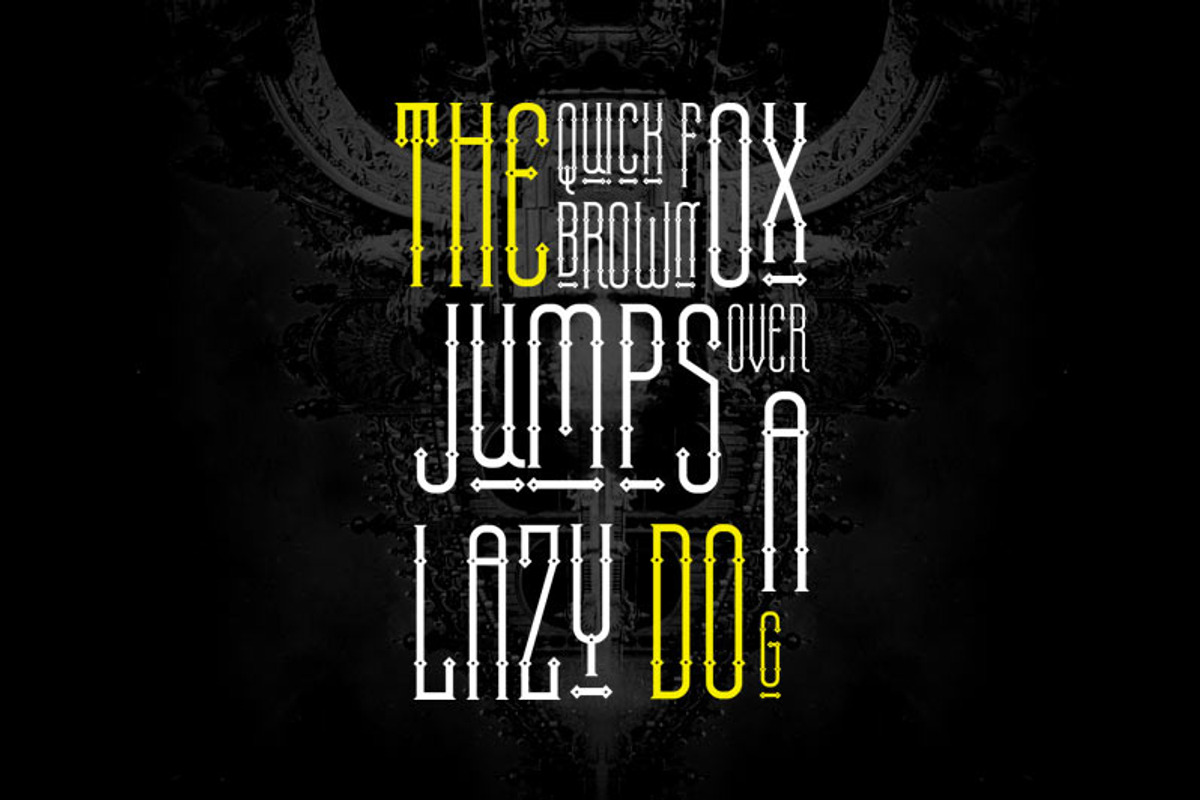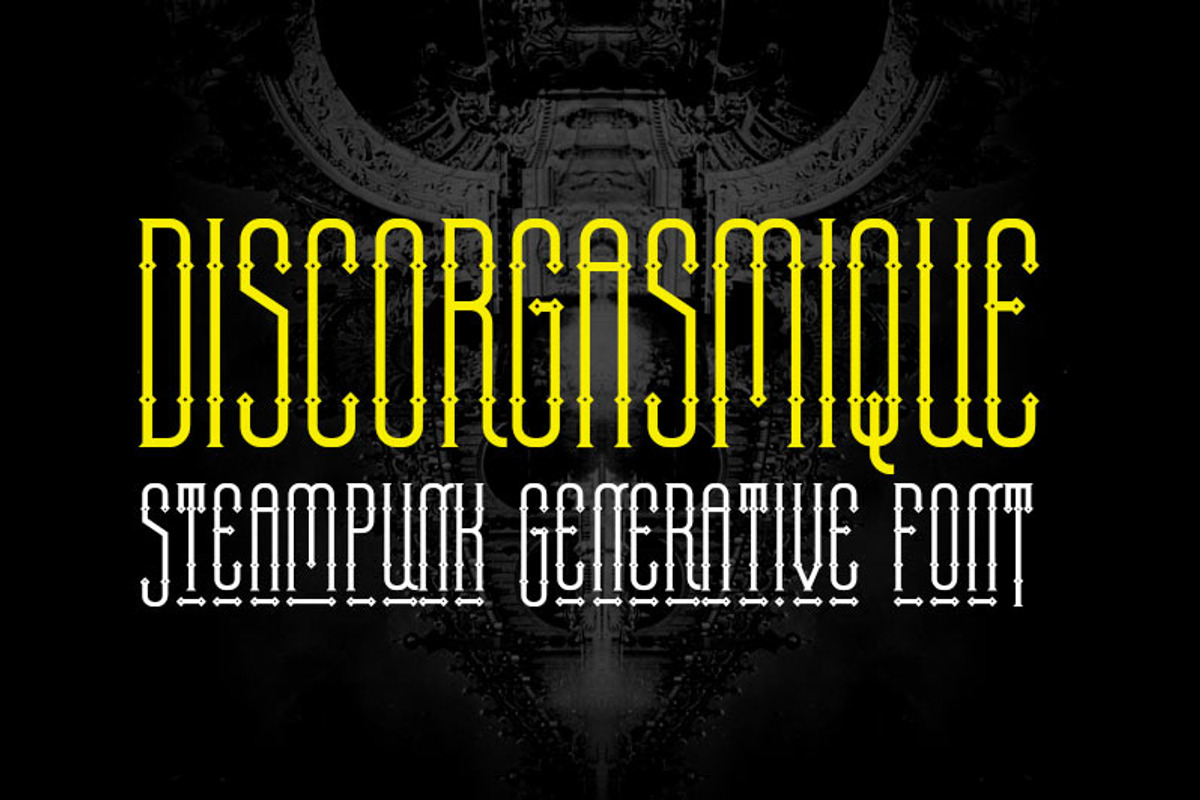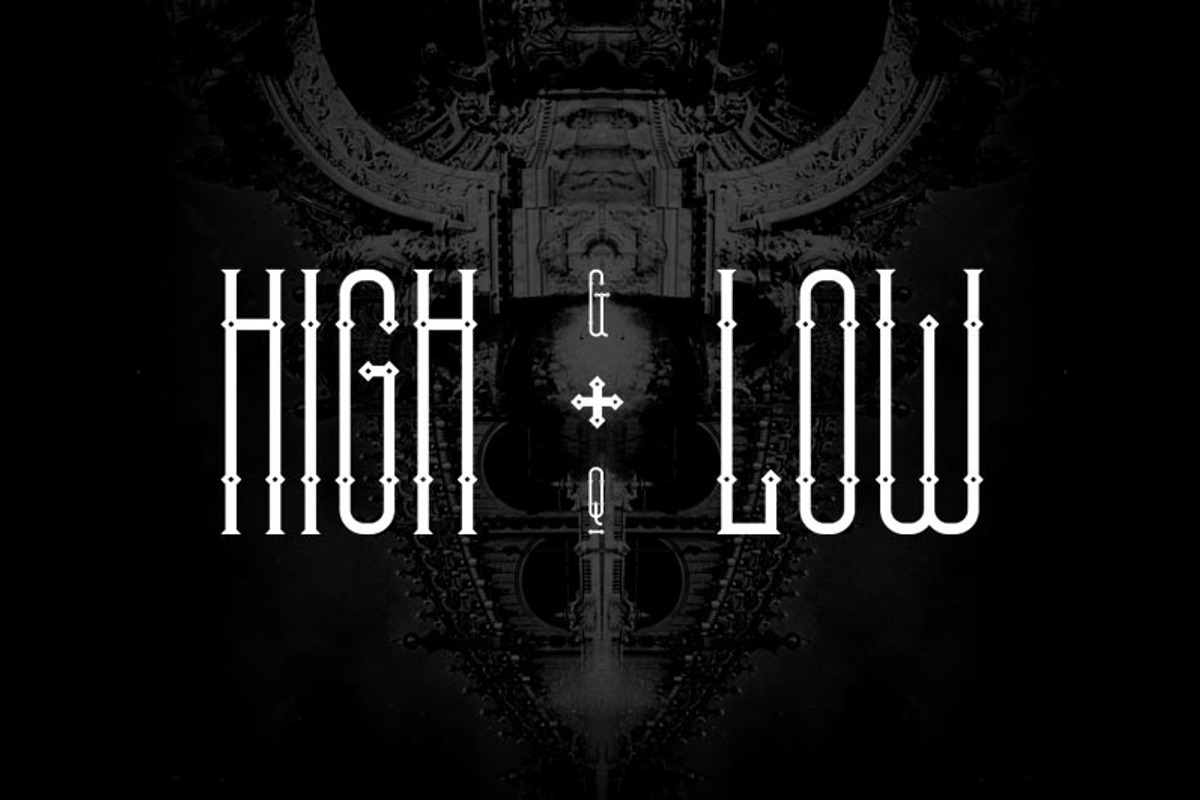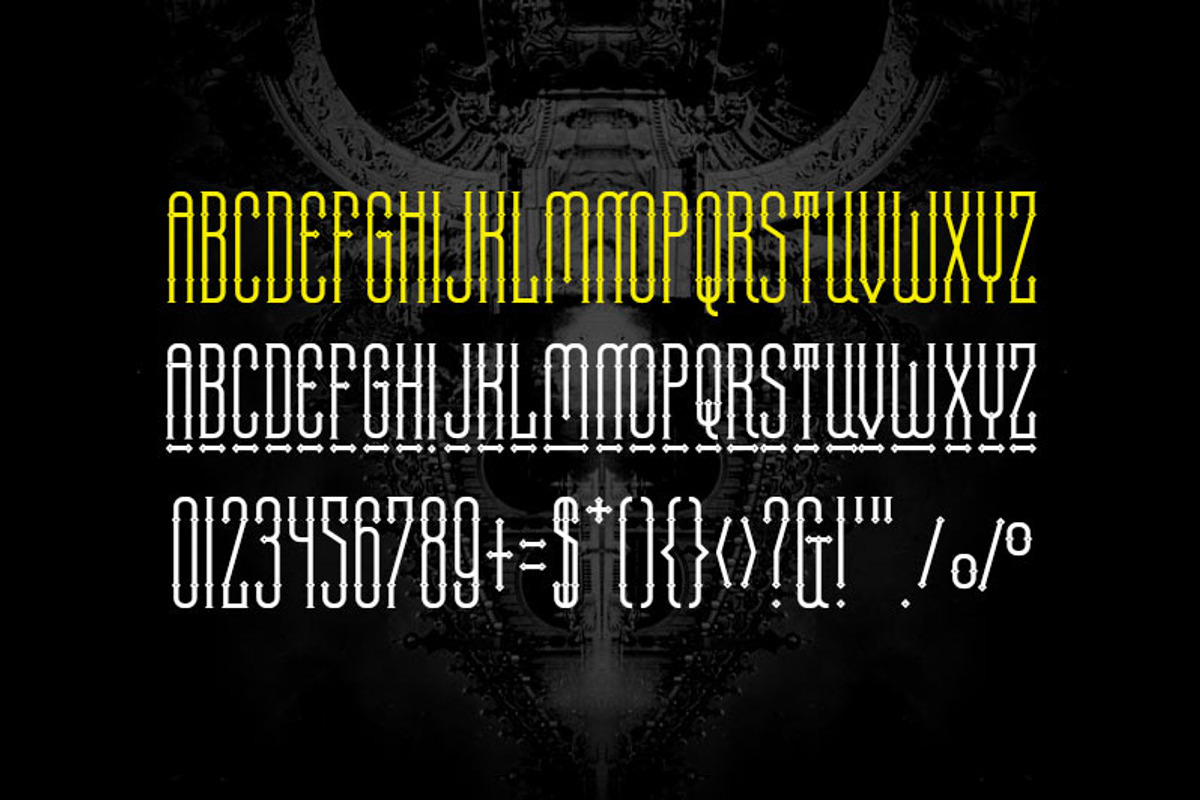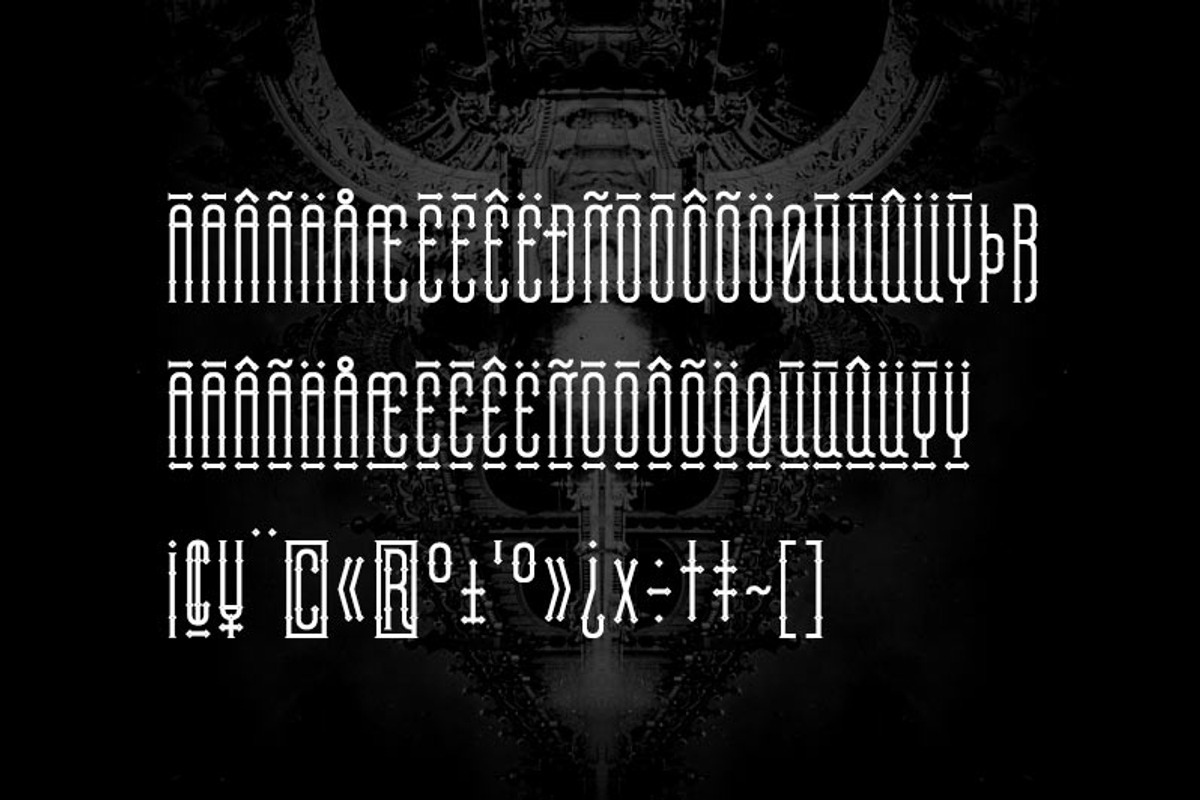
Discorgasmique font
Discorgasmique is an exclusieve type made by the Fonts of Chaos team. This steampunk / victorian inspired font is made for logotype but you can use also this font for your web and print work.